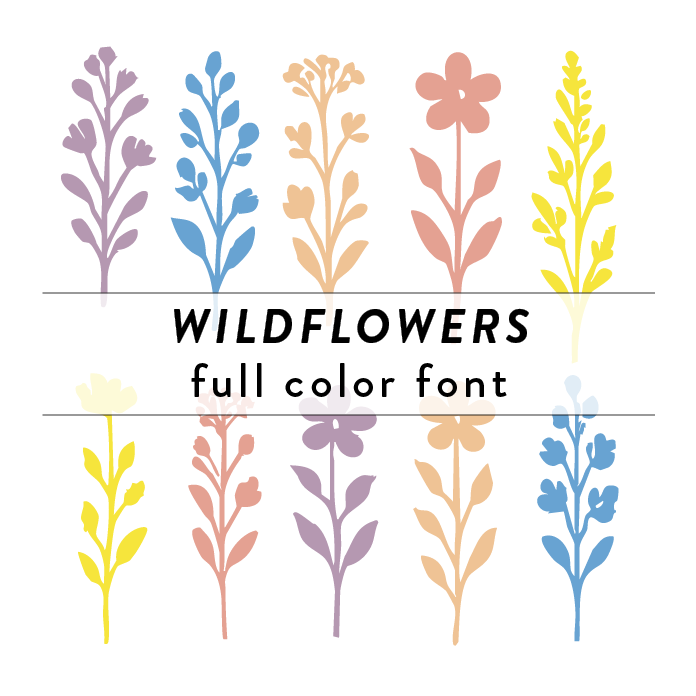
Wildflowers Full Color Font is a whimsical and vibrant font design that features intricate floral patterns in full color. The font style is decorative and inspired by the beauty of a garden, making it perfect for adding a touch of nature to any project. This unique font is ideal for invitations, greeting cards, and other creative designs that require a playful and colorful touch.